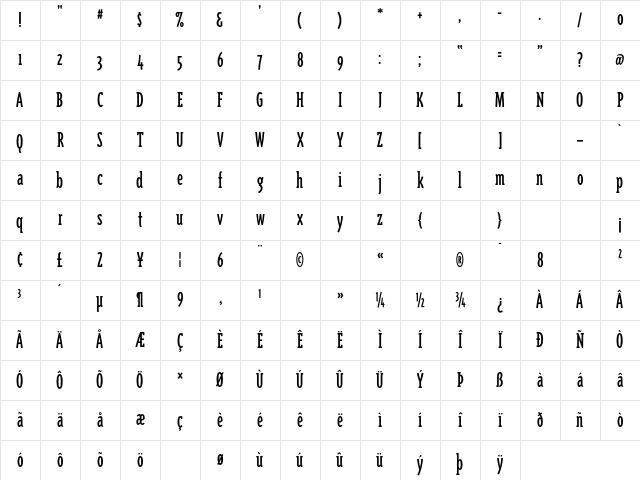
TriplexCondSerif Regular Free Font
TriplexCondSerif Regular
Complete TriplexCondSerif Regular glyph index. Displaying only characters natively supported by TriplexCondSerif Regular font.
Design Context for TriplexCondSerif
TriplexCondSerif carries the refined structure of traditional serif typography, with bracketed terminals and considered proportions that communicate credibility and craft. Its narrow stance lets it pack a punch even in space-constrained designs.